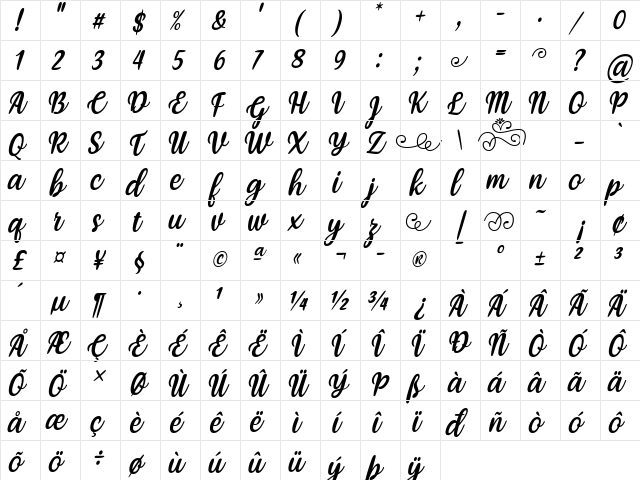
Veni Regular
| Foundry | 7NTypes |
| Designer | Situjuh Nazara; Andrian Dehasta |
Design Context for Veni Typeface
Veni is a composed and adaptable typeface that performs quietly and consistently across a wide range of design contexts.